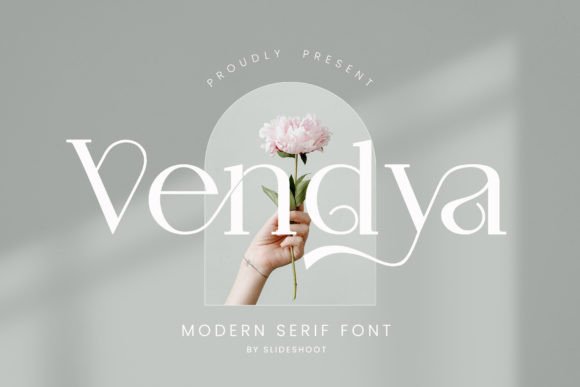
Step into a world of sophistication and elegance with Vendya Serif, a balanced, smooth, and stylish serif font family crafted for modern design enthusiasts. Experience the subtle beauty of serifs that exude professionalism and grace.
With Vendya Serif, your creations take center stage. Craft stunning invitation cards that leave a lasting impression, design company logos that emanate authority, or make captivating movie titles that draw audiences in. Transform business cards into sleek statements of identity, give book titles a touch of literary charm, and let brand names stand out with a timeless appeal.
Vendya Serif's versatility knows no bounds. Its alternations and ligatures, accessible through PUA encoding, unlock a world of customization possibilities. Create eye-catching headlines, stylish subheadings, and elegant body text that captivates readers.
In a digital world saturated with noise, Vendya Serif stands out with its refined aesthetic. Its timeless design elevates your creations, making them memorable and impactful. Whether you're a designer, marketer, or entrepreneur, Vendya Serif is your go-to choice for projects that demand sophistication and class.
Don't settle for ordinary fonts. Embrace the beauty and elegance of Vendya Serif. Elevate your designs, captivate your audience, and make a statement that resonates with timeless appeal.